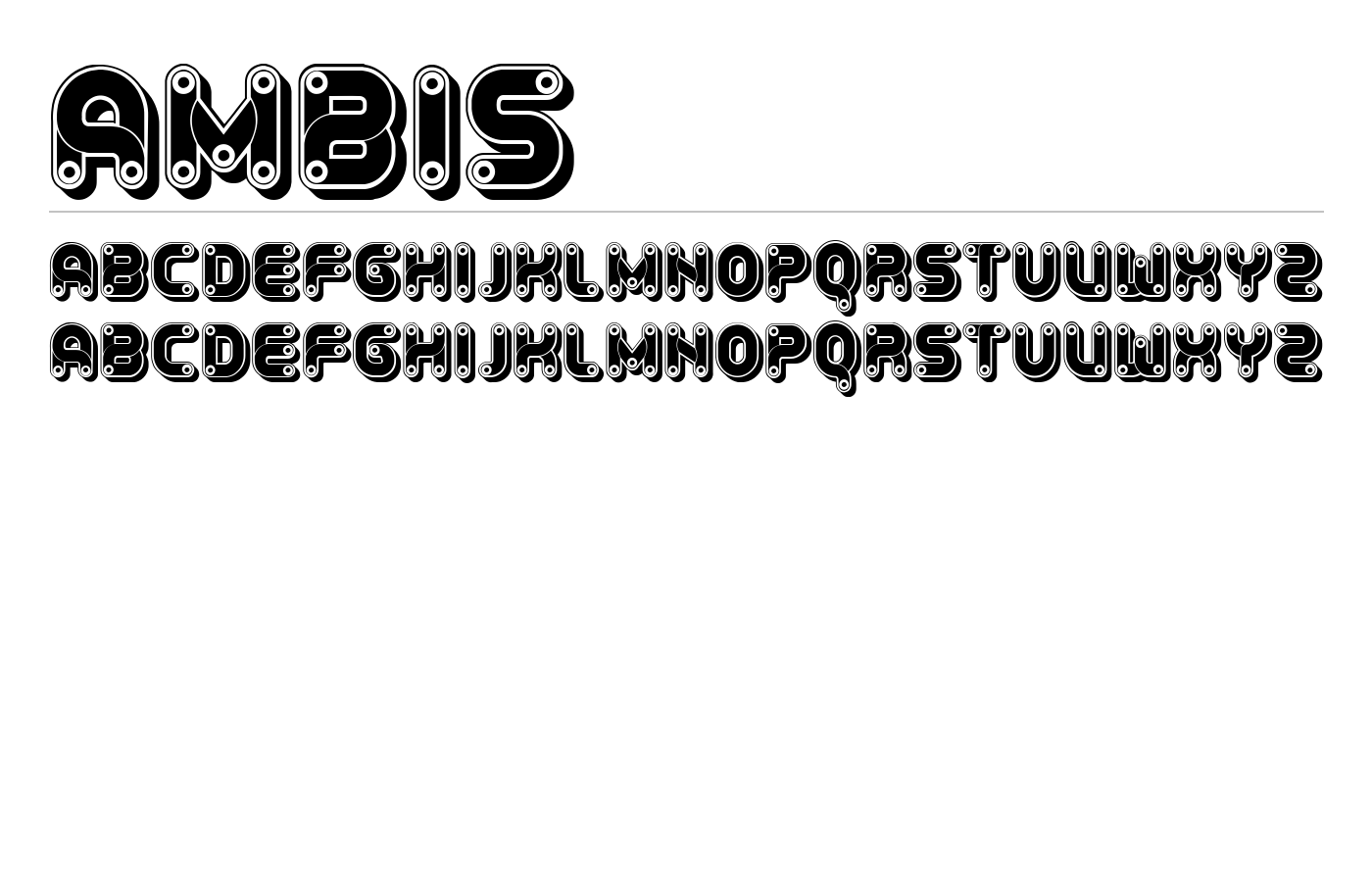
Ambis is a bold, decorative sans serif font with a playful and futuristic vibe, characterized by rounded, thick strokes and unique circular terminal accents that add a mechanical, almost robotic feel. Its consistent width and tight spacing make it ideal for eye-catching headlines, logos, and branding that seeks to stand out with a modern, tech-inspired personality. This font works well where creativity and impact are key, bringing a lively and distinctive style to designs.
Ambis Font
About Ambis Font
| Font family | Ambis Font |